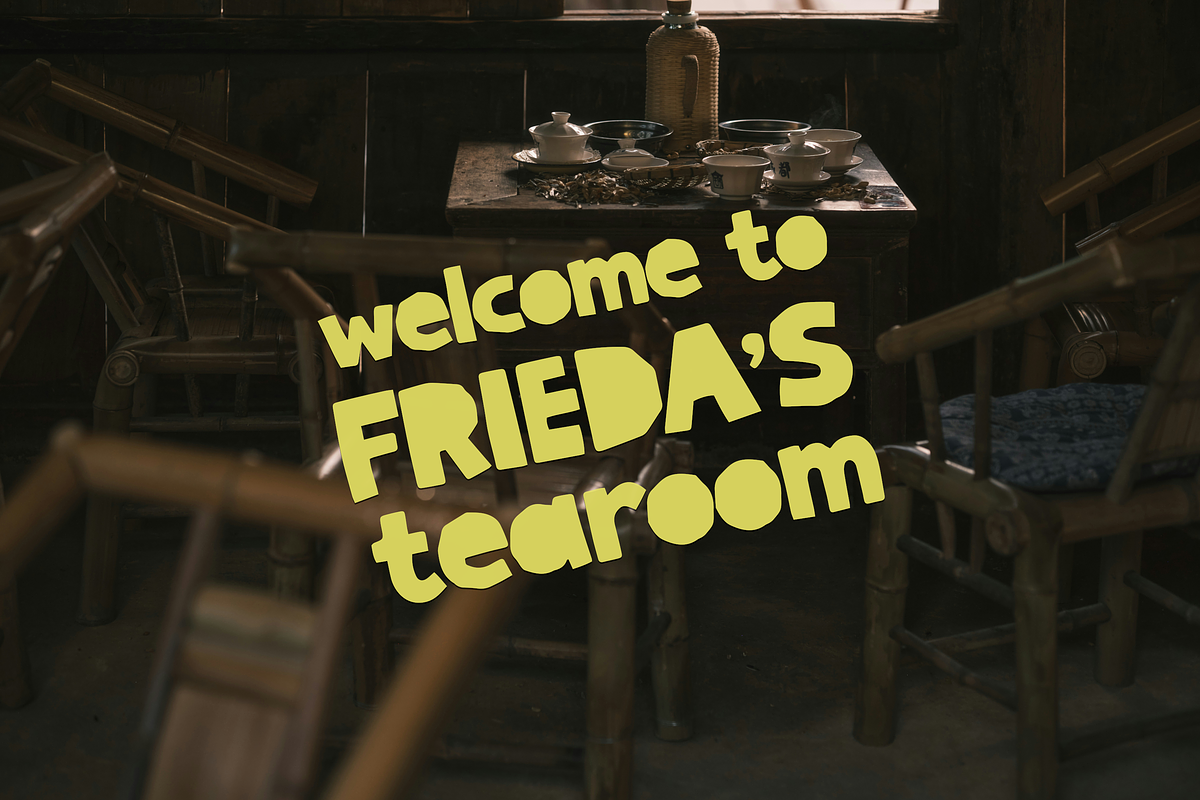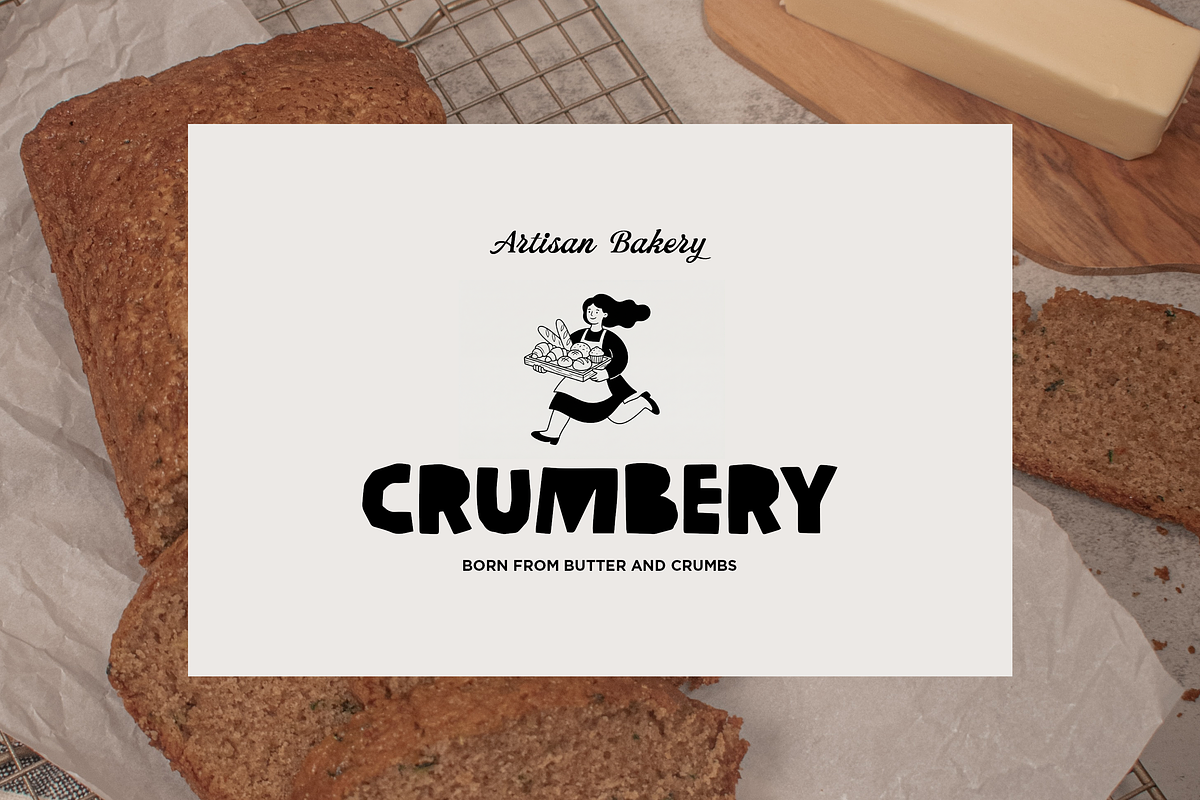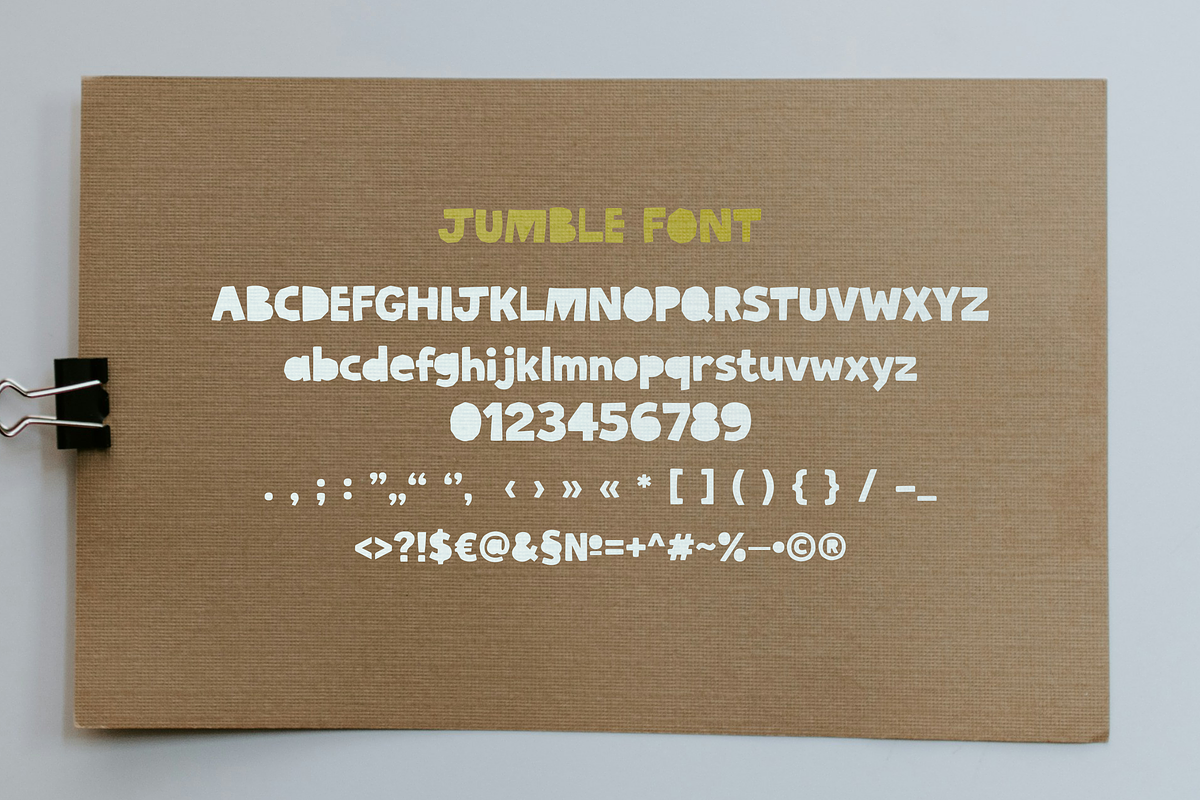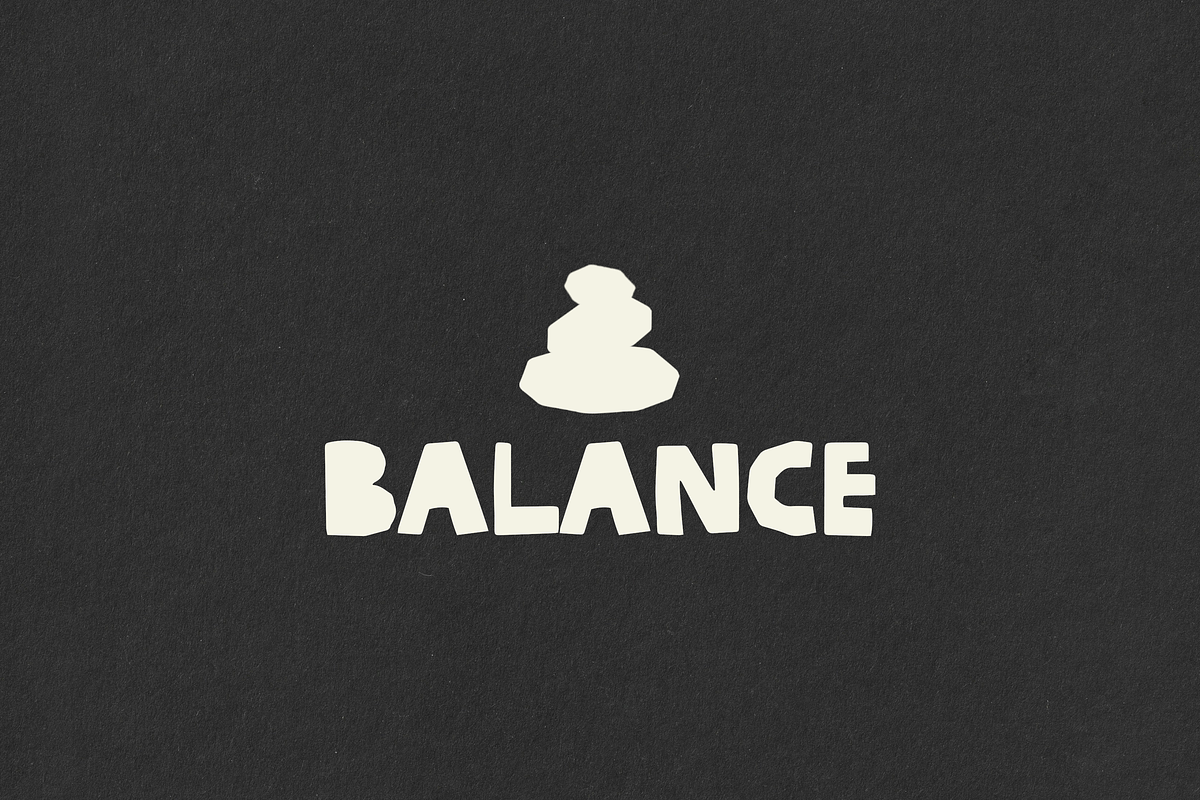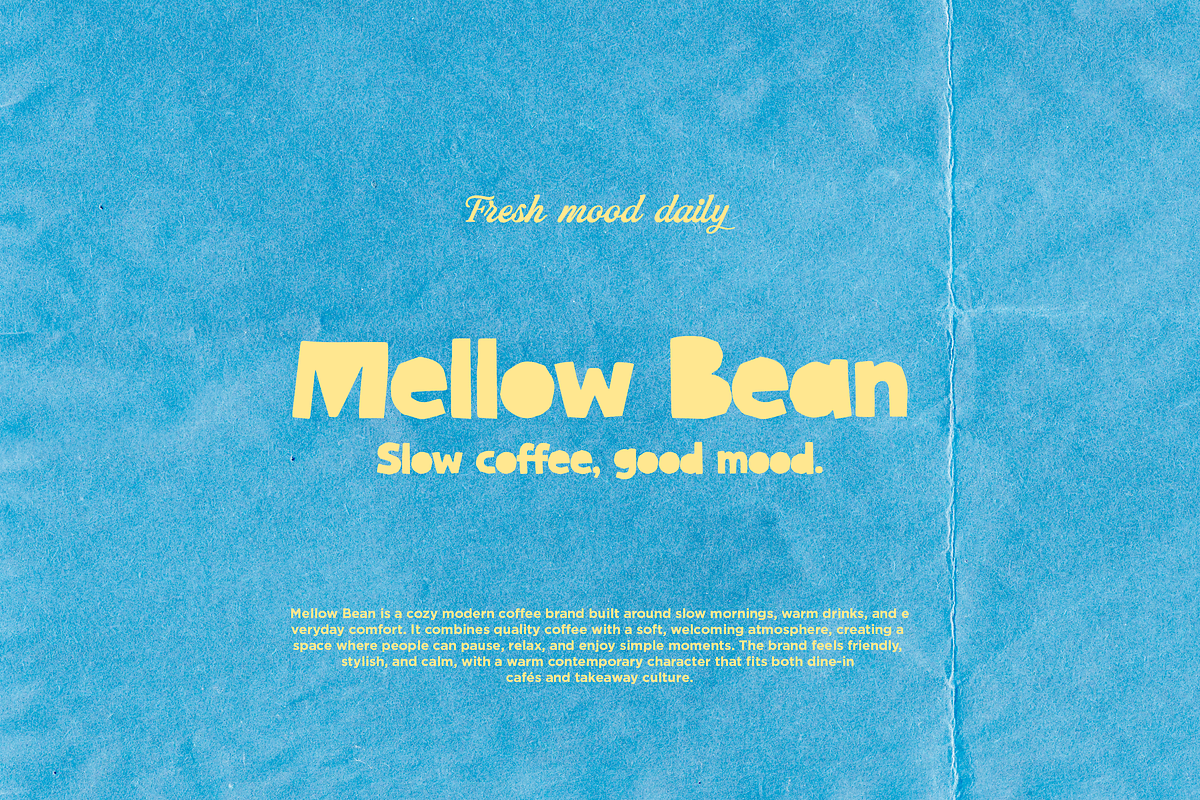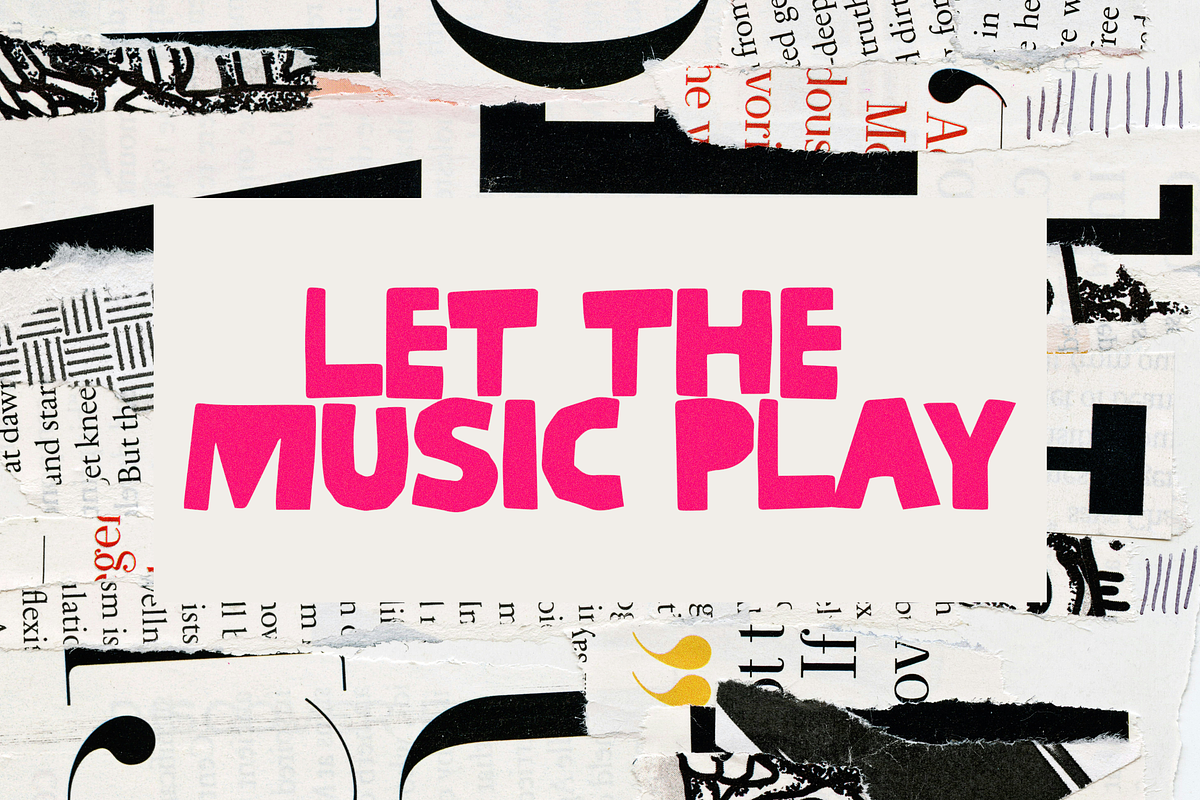
Jumble Playful Handmade Display Font
Jumble is a bold playful handmade display font with an imperfect cutout look. It features quirky letterforms, uppercase, lowercase, numerals, and punctuation. Perfect for logos, posters, packaging, branding, social media, and kids-themed designs.